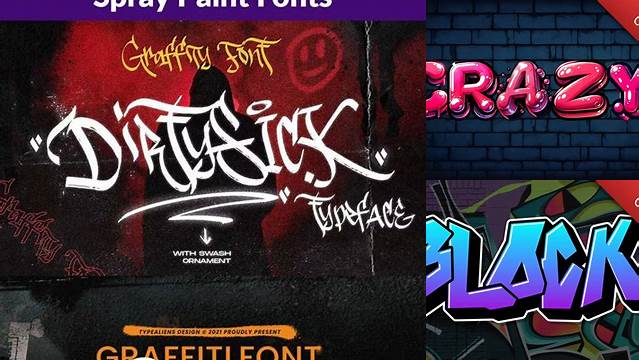
Free Graffiti Font Generator: Create Awesome Text Art
Hey guys! Ever wanted to create some killer graffiti art but didn't know where to start with the lettering? Or maybe you're a designer looking for that perfect urban edge for your next project? Well, you've come to the right place! In this article, we're diving deep into the world of free graffiti fonts and generators, showing you how to easily create awesome graffiti text without needing to hit the streets (or break the law!).
What are Graffiti Fonts and Why Use Them?
Graffiti fonts, at their core, are typefaces that mimic the styles and aesthetics of street art graffiti. They often feature bold, stylized letterforms, dynamic shapes, and a raw, urban feel. Think back to those iconic tags and murals you've seen – that's the essence we're talking about! These fonts aren't just about looking cool (though they definitely do that!); they're about expressing creativity, individuality, and a bit of rebellious spirit. Using graffiti fonts can instantly inject personality and attitude into your designs. They're perfect for a wide range of applications, including:
- Logos and Branding: Imagine a streetwear brand with a logo sporting a custom graffiti font – instant street cred!
- Posters and Flyers: Got an event that needs a bold statement? Graffiti fonts are your go-to.
- Social Media Graphics: Stand out from the scroll with eye-catching text that screams urban cool.
- T-shirt Designs: Add some edge to your apparel with a custom graffiti message.
- Digital Art and Illustrations: Graffiti fonts can complement and enhance your artistic creations.
- Website Headers and Banners: Make a memorable first impression with a dynamic and urban-inspired website design.
But beyond the specific applications, graffiti fonts are powerful tools for communication. They carry a certain weight and convey a message of authenticity and raw energy. They can be used to evoke emotions, grab attention, and leave a lasting impact on the viewer. The versatility of graffiti fonts extends from digital to print, making them a valuable asset in any designer's toolkit. When choosing a graffiti font, consider the overall message and tone you want to convey. Are you aiming for a bold and aggressive look, or something more playful and artistic? There's a graffiti font out there for every style and project, and understanding the nuances of each font will help you make the right choice. Remember, the key to effective design is to use fonts intentionally and strategically, ensuring that they complement and enhance your overall message. So, whether you're designing a logo, creating a poster, or simply experimenting with typography, explore the world of graffiti fonts and discover the unique power they hold. They're not just fonts; they're expressions of art, culture, and the rebellious spirit of the streets.
The Rise of Free Graffiti Font Generators
Okay, so you're sold on the power of graffiti fonts, but maybe you're not a seasoned typographer. No worries! That's where free graffiti font generators come in. These amazing online tools let you create custom graffiti text with ease, even if you have zero design experience. The rise of these generators is a game-changer for anyone wanting to explore this art form. They democratize design, making it accessible to everyone, regardless of their skill level. The beauty of a free graffiti font generator lies in its simplicity. You don't need to be a Photoshop wizard or an Illustrator guru to create stunning graffiti text. The intuitive interfaces of these generators allow you to experiment with different styles, colors, and effects with just a few clicks. This makes them ideal for quick mockups, brainstorming ideas, or even creating final designs on the fly.
But the convenience isn't the only advantage. These generators often provide a vast library of pre-designed graffiti fonts, saving you the time and effort of searching for individual fonts online. You can browse through various styles, from classic block letters to wildstyle extravaganzas, and find the perfect match for your project. Many generators also offer customization options, allowing you to tweak the font size, spacing, and color to your exact specifications. This level of control ensures that you can create truly unique and personalized graffiti text. The rise of these generators has also fueled a new wave of creativity in the digital art world. Artists and designers are using these tools to push the boundaries of graffiti art, experimenting with new styles and techniques that wouldn't have been possible before. The accessibility of these generators has also made them a valuable educational resource. Students and aspiring designers can use them to learn about typography, composition, and the history of graffiti art. They provide a safe and fun environment to experiment with different design principles and develop their creative skills. So, whether you're a professional designer, a student, or simply someone who loves graffiti art, free graffiti font generators offer a powerful and accessible way to create stunning text designs. They're a testament to the power of technology to democratize art and empower individuals to express their creativity.
Top Free Graffiti Font Generators Online
- Graffiti Text Creator: This is a super popular option known for its ease of use and wide variety of styles. You can choose from different font types, colors, and backgrounds. The generated text can then be downloaded as an image, making it easy to use in various projects.
- Cool Text: Don't let the somewhat retro website design fool you – Cool Text is a fantastic resource for generating all sorts of text effects, including graffiti. It offers a range of customizable options, including font style, size, color, and even shadow effects.
- Fontasy.org: Fontasy.org is a comprehensive online tool that includes a graffiti font generator. It stands out with its advanced customization features, allowing you to fine-tune every aspect of your graffiti text, from letter spacing to outline thickness. This makes it a great choice for those who want precise control over their designs.
- Graff Writer: This generator is specifically designed for creating graffiti-style text. It features a clean and intuitive interface, making it easy to generate cool graffiti designs in seconds. Perfect for beginners!
- TextGiraffe: TextGiraffe offers a simple yet effective graffiti text generator. It provides a range of font styles and customization options, making it a convenient tool for creating quick graffiti designs. Its simplicity makes it particularly useful for users who need to generate text quickly without sacrificing quality.
Each of these generators has its own strengths and weaknesses, so the best one for you will depend on your specific needs and preferences. Some generators prioritize ease of use, while others offer more advanced customization options. Experimenting with different generators is the best way to find the one that suits your style. Consider factors such as the range of font styles offered, the available customization options, and the output format when making your choice. Some generators may allow you to download the text as a vector file, which is ideal for scaling and printing, while others may only offer image downloads. Also, be sure to check the terms of use for each generator, especially if you plan to use the generated text for commercial purposes. Some generators may have restrictions on the commercial use of their fonts or designs. The availability of previews is also a crucial factor. A good generator will allow you to see a preview of your text in real-time as you make changes to the settings. This makes the design process much more efficient and allows you to experiment with different options without having to generate the text each time. Ultimately, the goal is to find a generator that empowers you to express your creativity and produce high-quality graffiti text that meets your specific needs. So, dive in, explore the options, and unleash your inner street artist!
Level Up Your Graffiti Art Today!
So there you have it, guys! Everything you need to know about free graffiti fonts and generators. Whether you're a seasoned designer or just starting out, these tools can help you create some seriously awesome art. Now go forth, experiment, and unleash your inner street artist!